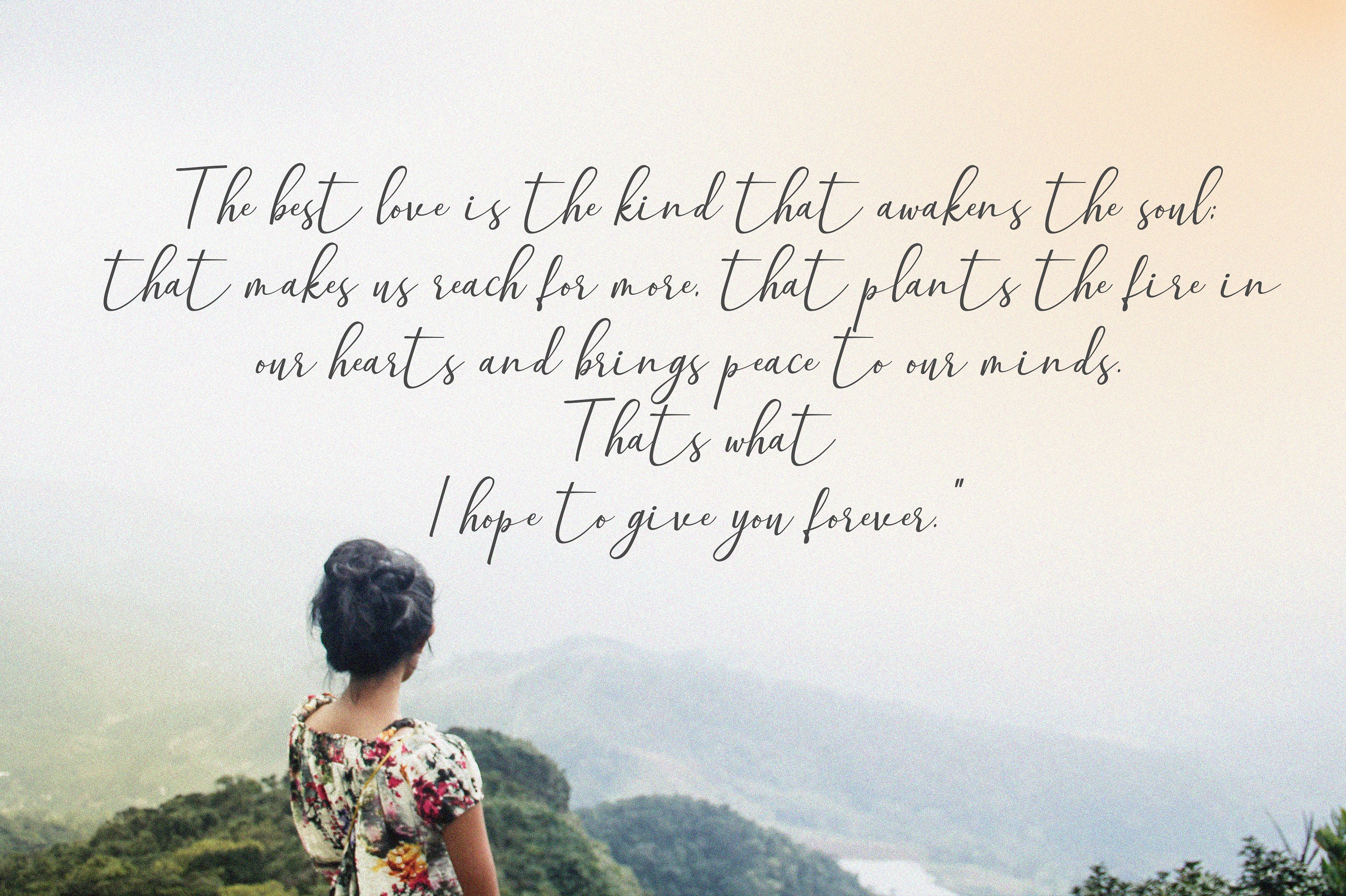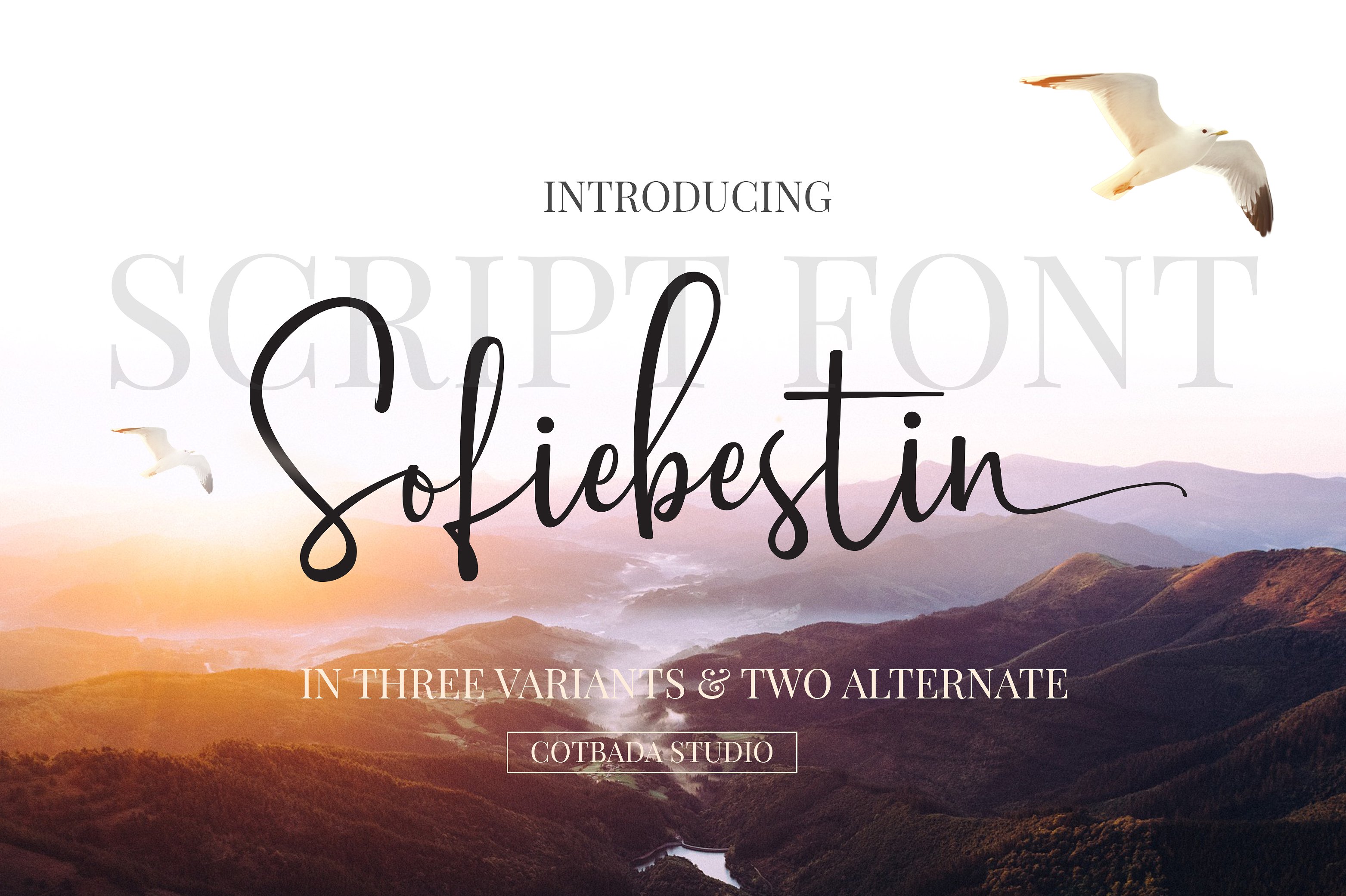
Sofiebestin Handwritten
Sofiebestin Handwritten Font
Sofiebestin Script Font is a unique, cool and modern handwritten font. It’s hand look style makes it perfect for use in all your design projects be it logos, signatures, labels, packaging design, blog headlines.